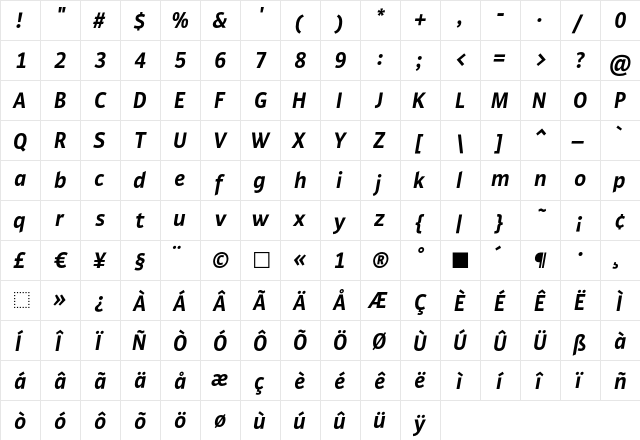
GakSans BoldItalic Font Preview
Design Context for GakSans Typeface
GakSans takes a measured approach to typography — its balanced proportions and neutral character make it a reliable workhorse for both digital and print work. Its italic angle brings a sense of urgency and motion to the letterforms. The heavy weight commands attention and anchors typographic hierarchies.
Pro Tip: Try GakSans for annotation and caption copy alongside an upright companion — the contrast in angle creates a dynamic but ordered typographic system.